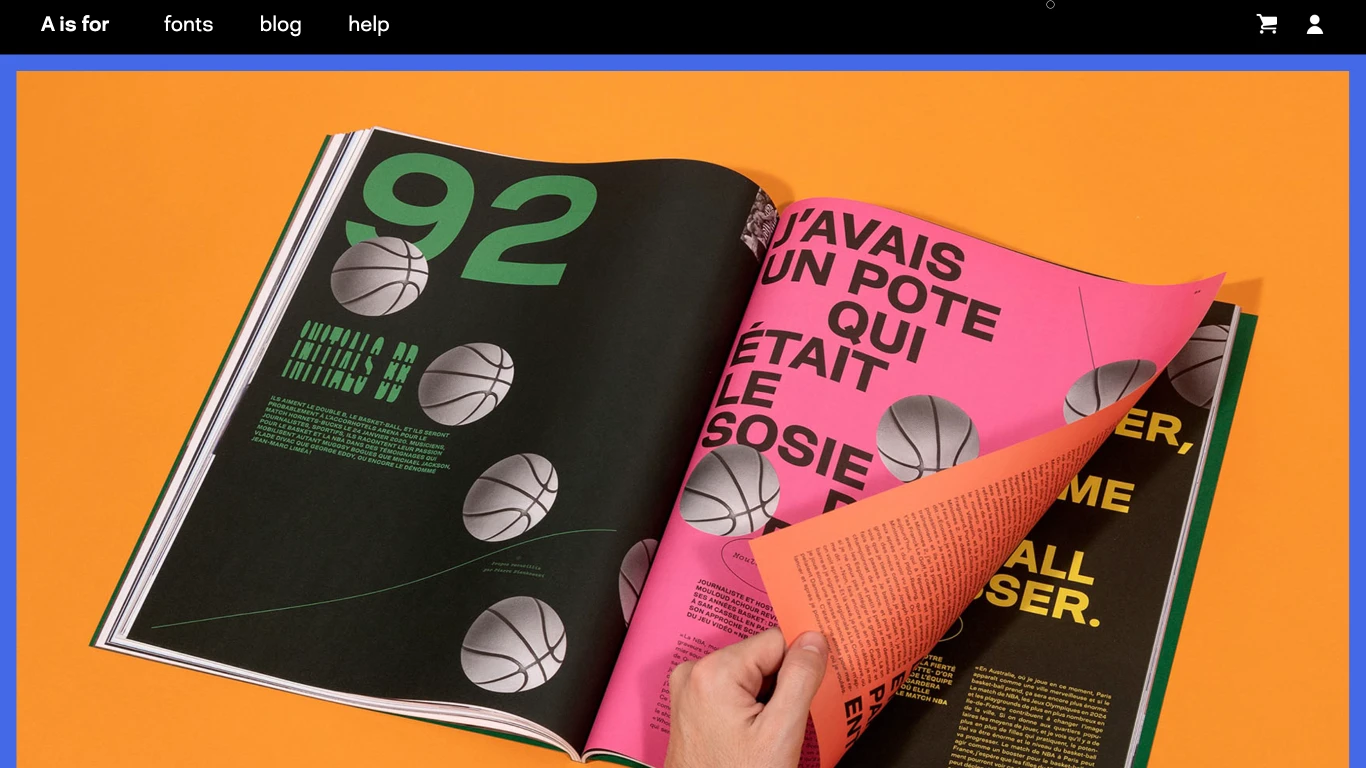
France
2010
A is for Fonts is a French type foundry offering typefaces that blend strong visual expression with technical precision. The foundry is notable for its commitment to non-modular designs, reflecting the belief that "life is most of the time not modular." Their inaugural release, the Coline family, earned the Type Design Prize at the 2011 Tokyo Type Director's Club. Additionally, A is for Fonts supports environmental charities by offering free licensing to organizations dedicated to protecting the environment.